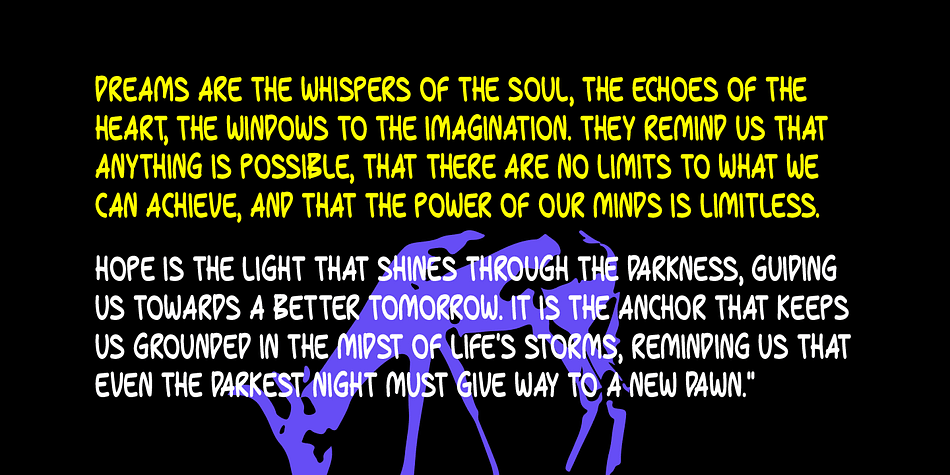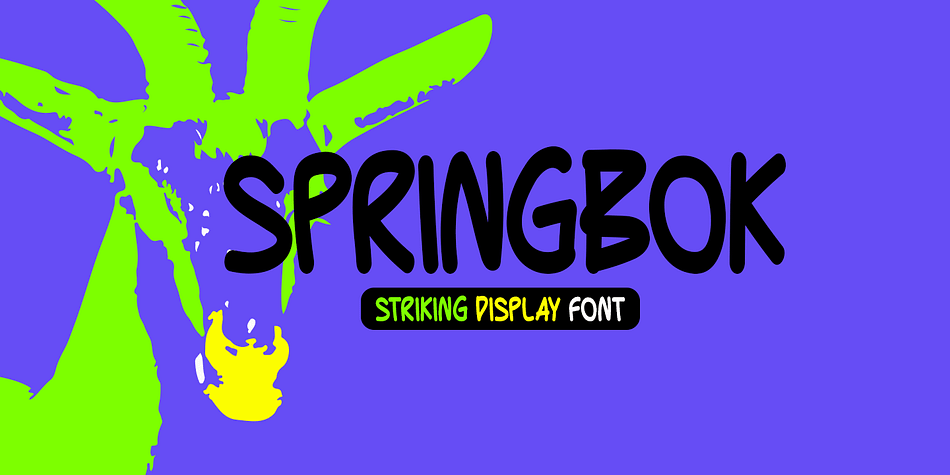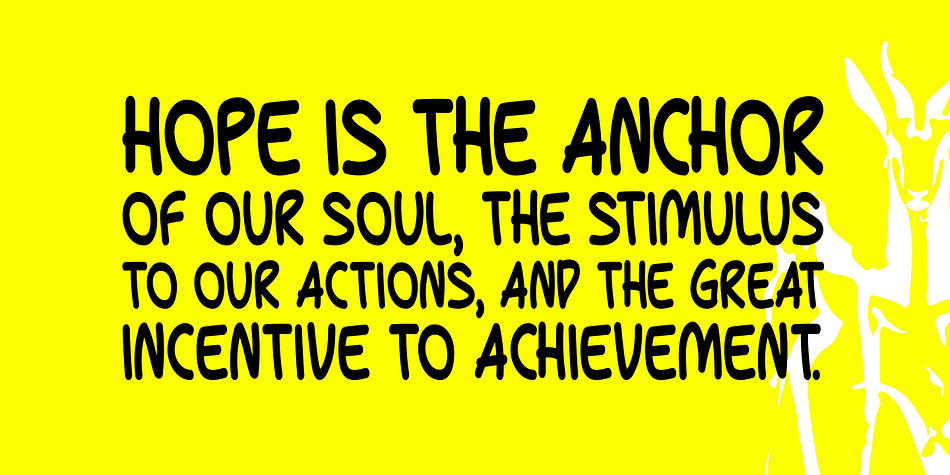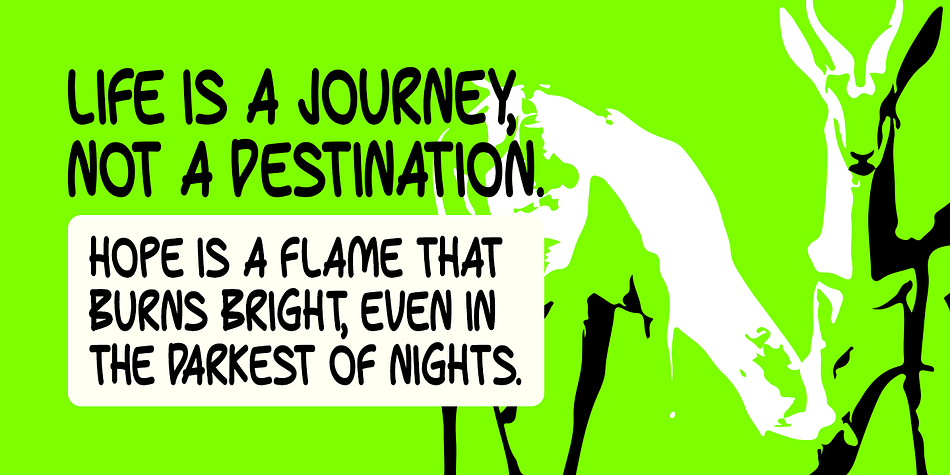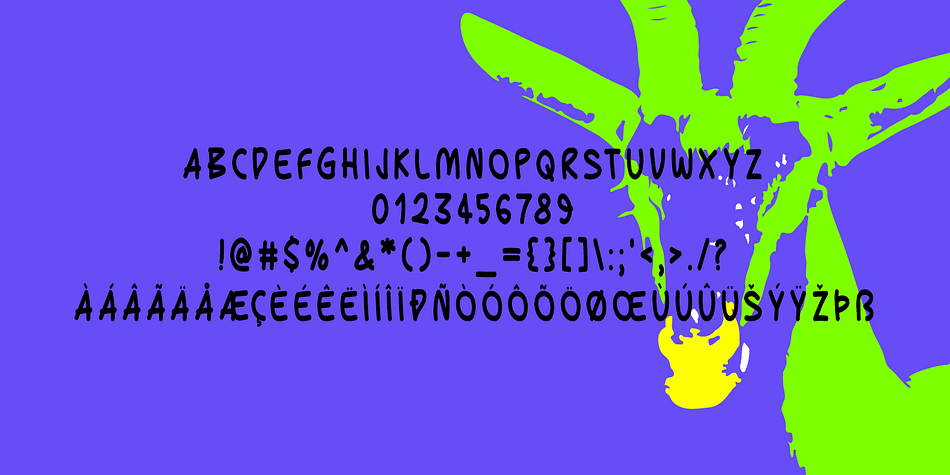
SPRINGBOK
Designed by Md. Shohail Bhuiyan, Springbok is a brush display and hand display font family published by Seemly Fonts.
Springbok is a striking display font. It can easily be matched to an incredibly large set of projects, so add it to your creative ideas and notice how it makes them stand out!